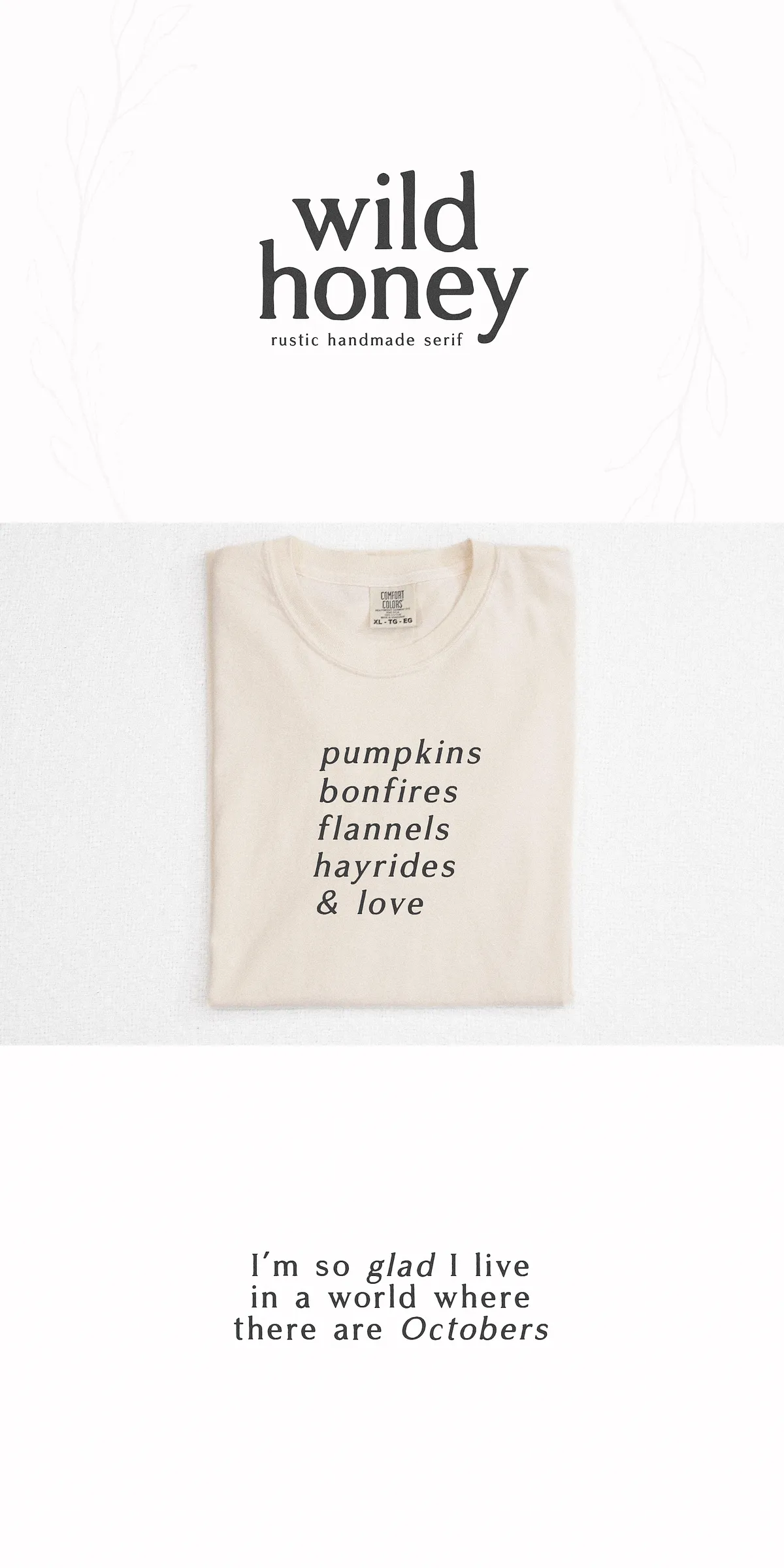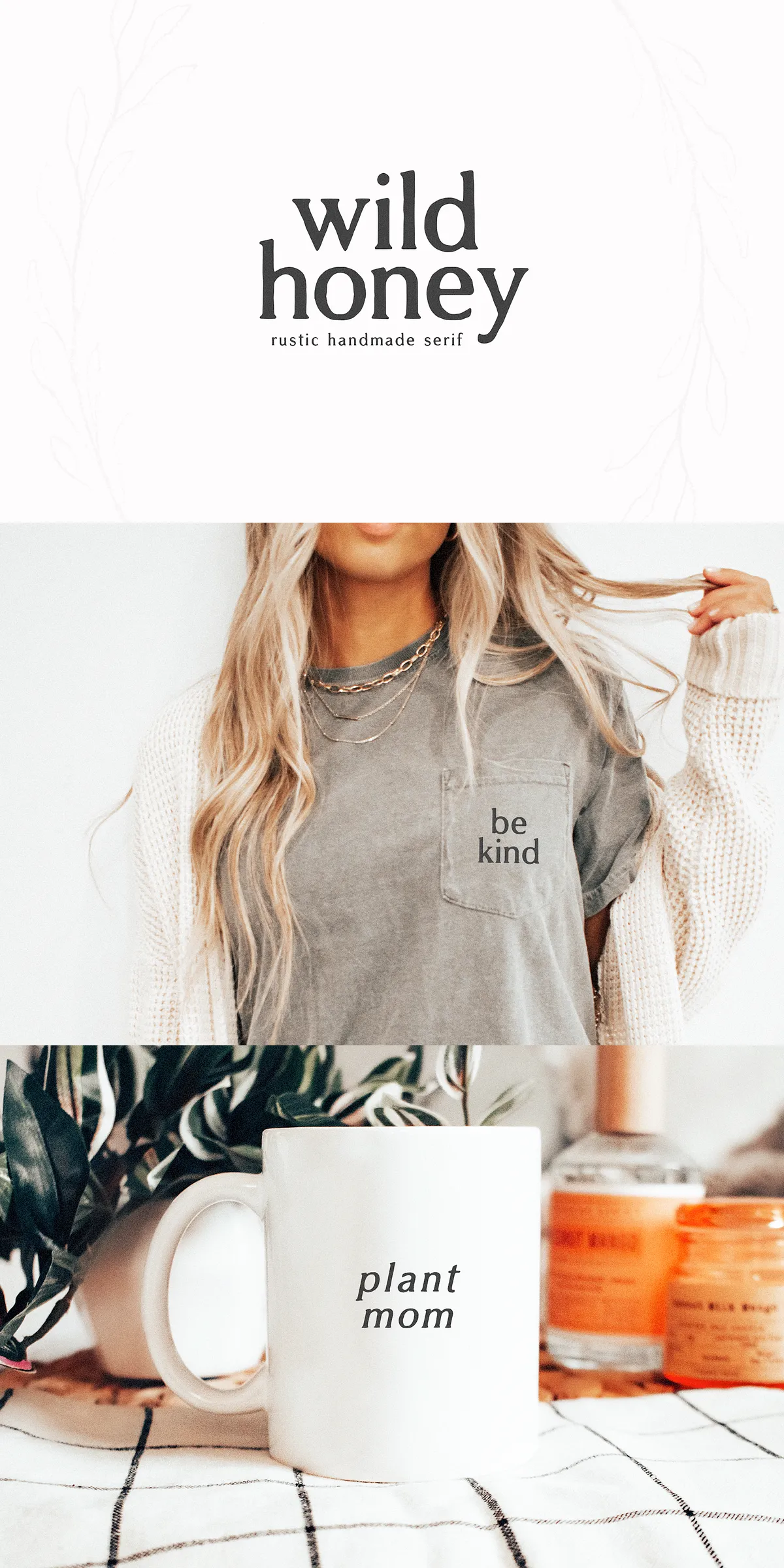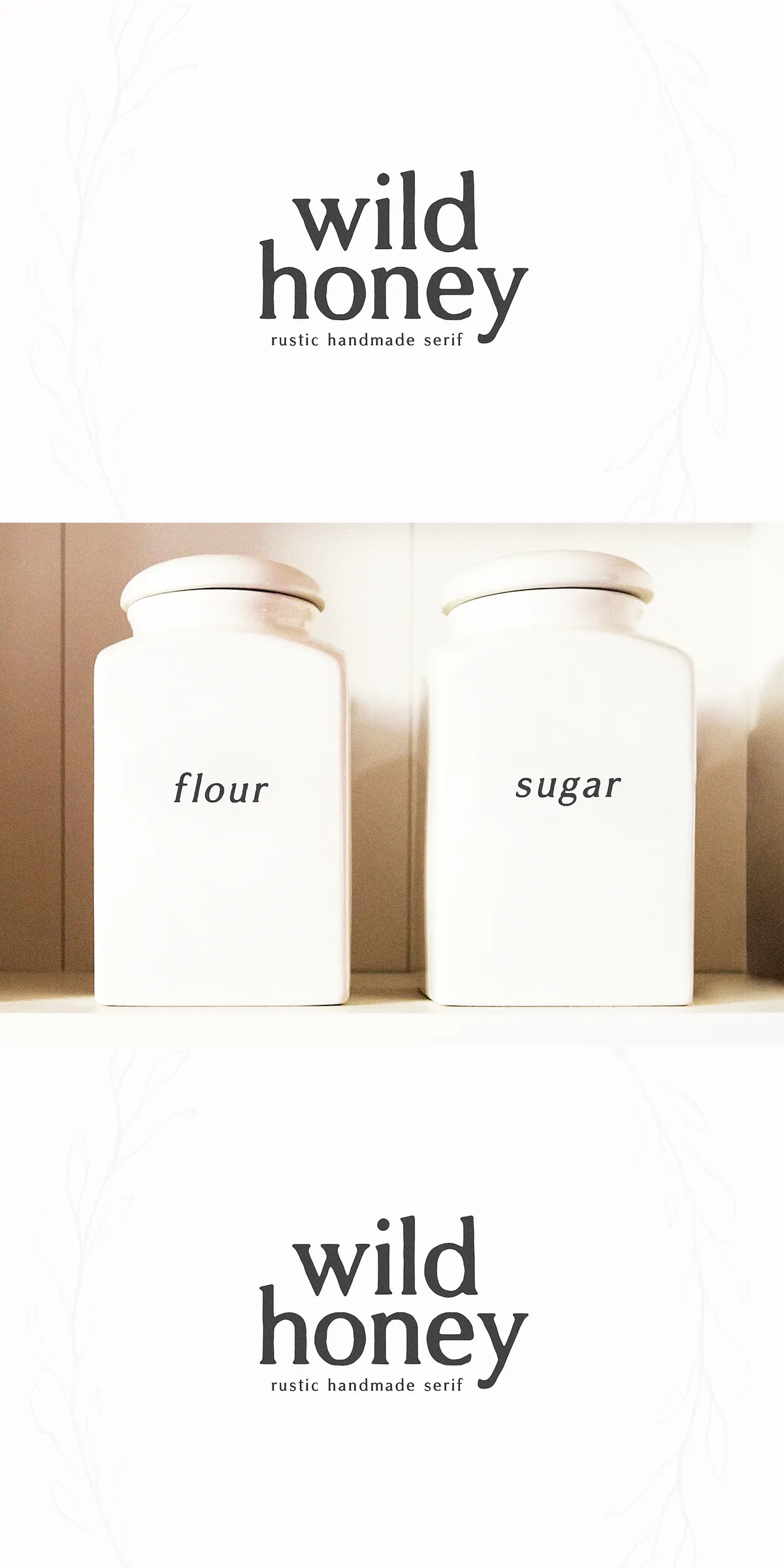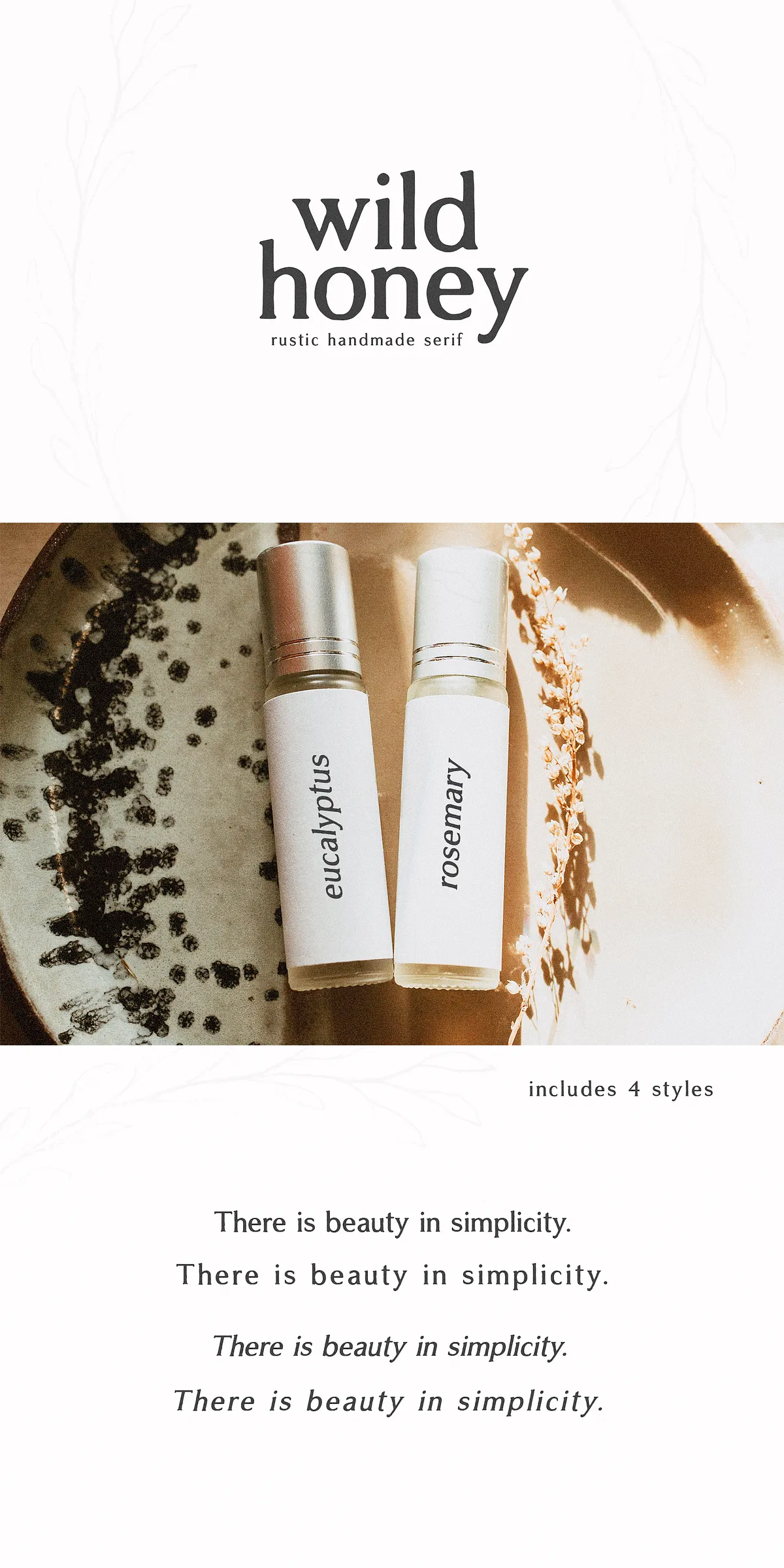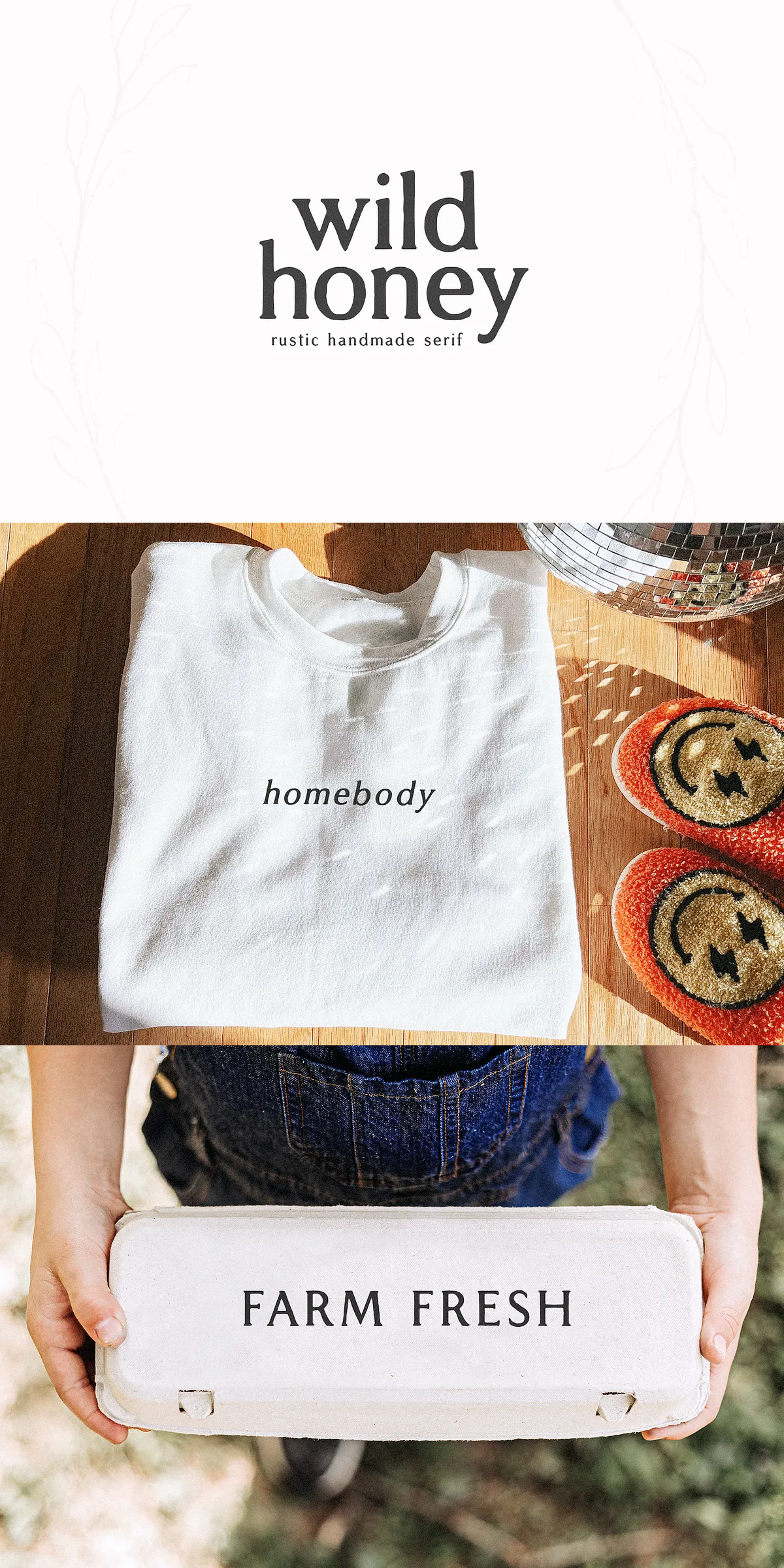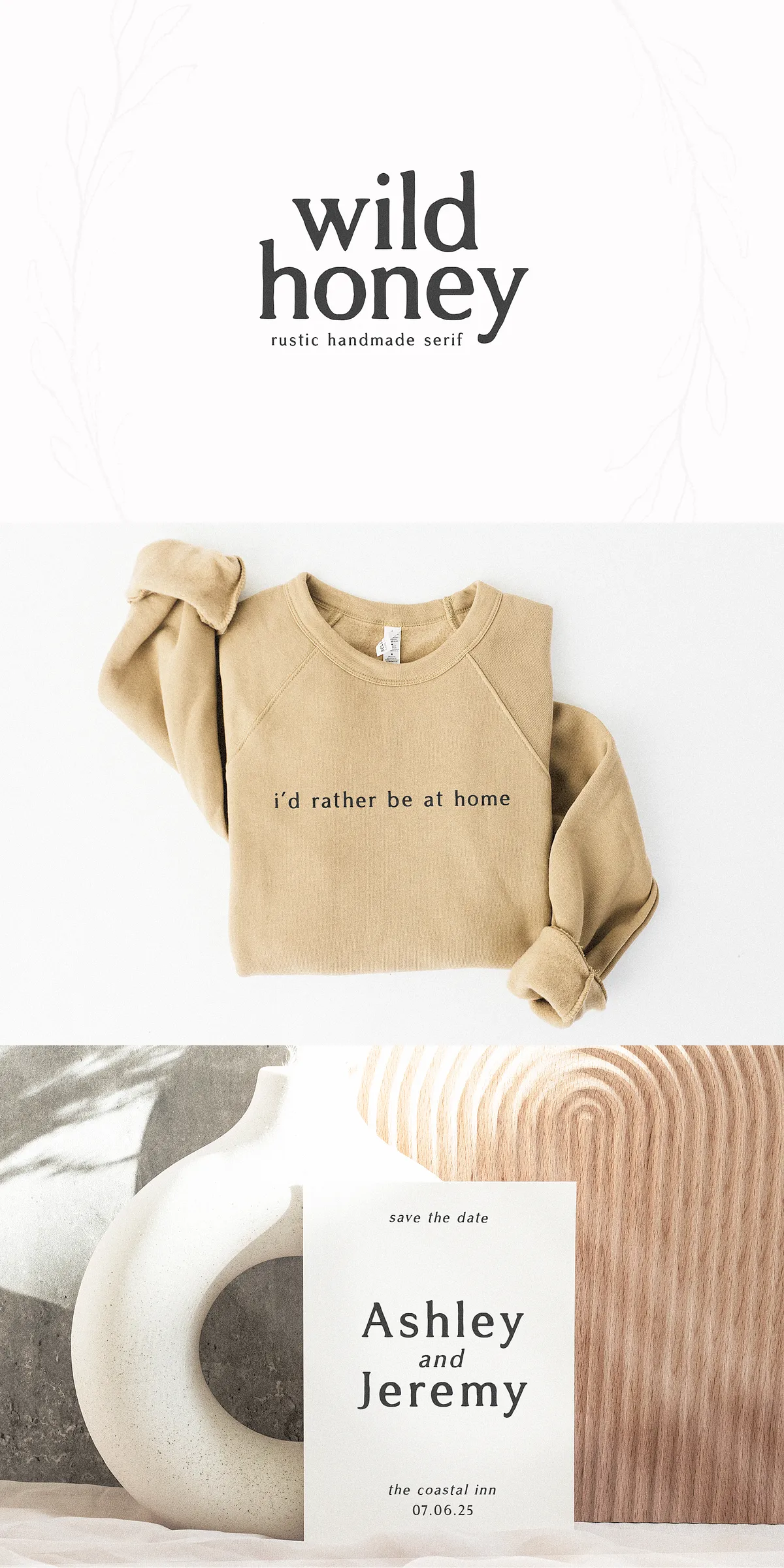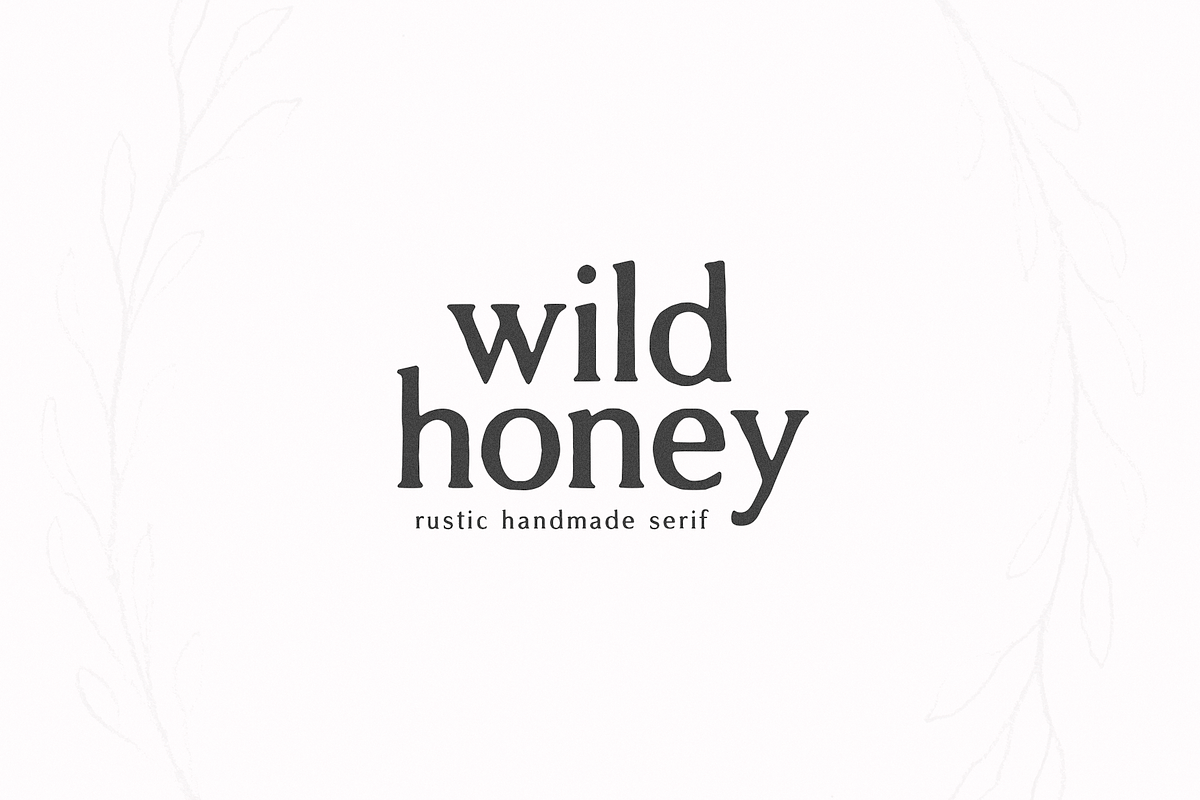
Wild Honey | Rustic Serif Font
Unleash the soul of handmade charm with Wild Honey—a rustic, artisanal serif font that breathes life into your creative projects. Inspired by the imperfections of hand-drawn lettering and the authenticity of farm life, this font is more than just text; it’s a feeling. Whether you’re designing a wedding invitation, crafting a sticker, labeling your pantry, or building a brand identity, Wild Honey adds instant warmth, character, and soul.
Bring Authentic Craftsmanship to Every Project
Wild Honey was crafted for designers who value texture, history, and emotional resonance. It’s not a polished, machine-made font—it’s a bold statement of artisanal authenticity. With slightly uneven stroke weights, subtle flourishes, and natural flow, each character looks like it was drawn with care on a real notebook or chalkboard.
• Perfect for Wedding Invitations — Create elegant, intimate designs that feel personal and timeless.
• Farmhouse & Rustic Design — Ideal for home décor, signage, and interior branding with a cozy, nature-inspired aesthetic.
• DIY & Craft Projects — Use on stickers, tote bags, mugs, candle labels, and scrapbooking with ease.
• Branding & Logos — Build a unique identity that feels grounded, trustworthy, and human-centered.
• Social Media & Quotes — Add a personal touch to Instagram posts, quotes, and digital content with a handmade feel.
From the first look, Wild Honey tells a story—it’s not about perfection. It’s about presence. It’s about realness.
Three Versatile Variants for Every Need
Wild Honey comes in three distinct styles to match your design context:
• Regular — The core version with natural flow and gentle contrast. Best for body text, headlines, and clean layouts.
• Spaced — Slightly increased letter and word spacing for better readability. Ideal for signs, banners, and high-contrast prints.
• Slant — A dynamic italic-style variant with a relaxed, forward-leaning movement. Perfect for accents, quotes, and modern rustic designs.
Each style is engineered for real-world use. Whether you’re printing on paper, designing for web, or editing in Adobe Illustrator, the results are crisp, expressive, and beautifully imperfect.
Wild Honey isn’t just a font—it’s a mindset. It’s for designers who believe that imperfection can be beautiful. That a little hand-done roughness can make your brand feel closer, more human, and more memorable.
Use it to:
• Create standout wedding invitations with a feminine, rustic charm.
• Label jars of jam, honey, or homemade goods with authentic, handmade appeal.
• Build a brand that feels local, honest, and unpretentious.
• Design social media templates that resonate with community, simplicity, and heart.
• Express quotes, mottos, and messages that feel like they were written by hand.
Let Wild Honey be the voice behind your brand. Let it speak not with perfection—but with authenticity.